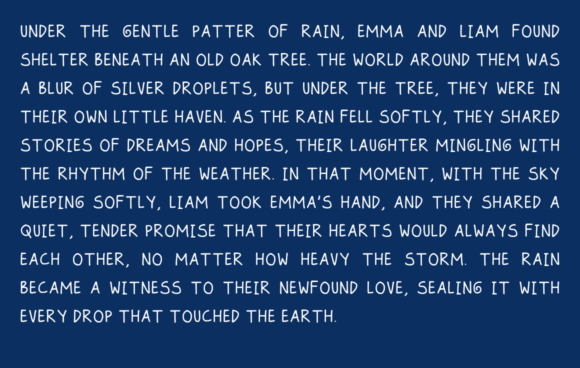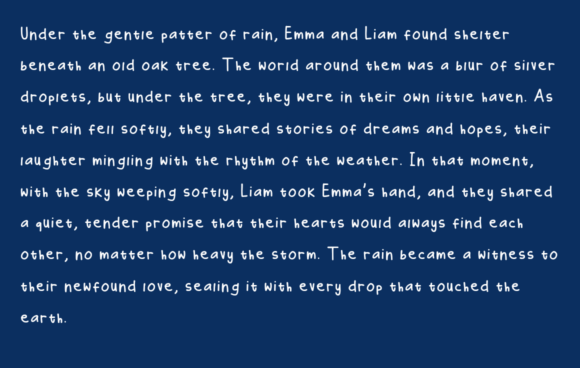
Introduction to Rafindra Font
Have you ever found yourself lost in the world of design, searching for the perfect font to bring your creative project to life? For designers, selecting the right font can be a daunting task, but what if I told you that I’ve discovered a hidden gem that’s sure to elevate your visual identity? Introducing the enchanting Rafindra Font, a hand-drawn typeface that exudes charisma and charm.
This versatile font is characterized by its elegant, crisp, and easily readable upper and lower case letters, with a soft, organic rhythm that’s simply irresistible. With its minimalist aesthetics, the Rafindra Font is an ideal companion for designers looking to create engaging narratives, personal memoirs, or high-end branding materials.
Whether you’re working on a digital interface or print media, the Rafindra Font offers a tall, thin silhouette that’s sure to impress. And the best part? This free download is available with a transparent background, making it easy to integrate into your design resource library.
Key Features of Rafindra Font
- Unique characteristics include its modern and sleek design, perfect for use in logos, branding, and other creative projects.
Honest Review: Rafindra Font
I recently stumbled upon the Rafindra Font while searching for a high-quality design resource for a creative project. The initial impression was quite positive, and I was eager to dive deeper into its features.
- ✨ High-quality design: The Rafindra Font boasts a sleek and modern design that can elevate any project.
- ⚠️ Limited character set: The font’s character set is not as extensive as I would have liked, which might limit its use in certain creative projects.
- ⚠️ Not suitable for large-scale projects: Due to its limited character set, I wouldn’t recommend using the Rafindra Font for large-scale projects that require a lot of text.
Overall, the Rafindra Font is a solid design resource that can add a touch of elegance to small-scale creative projects. While it has its limitations, it’s a great option for designers looking for a high-quality font with a transparent background.
To get the most out of the Rafindra Font, use it on a transparent background to create a clean and modern design. Experiment with different font sizes and styles to find the perfect fit for your project.
The Rafindra Font is perfect for:
- Website design